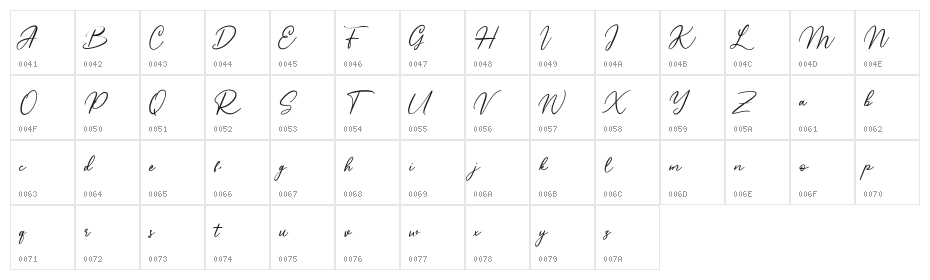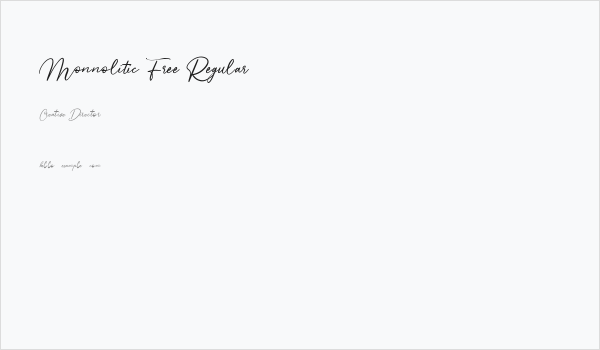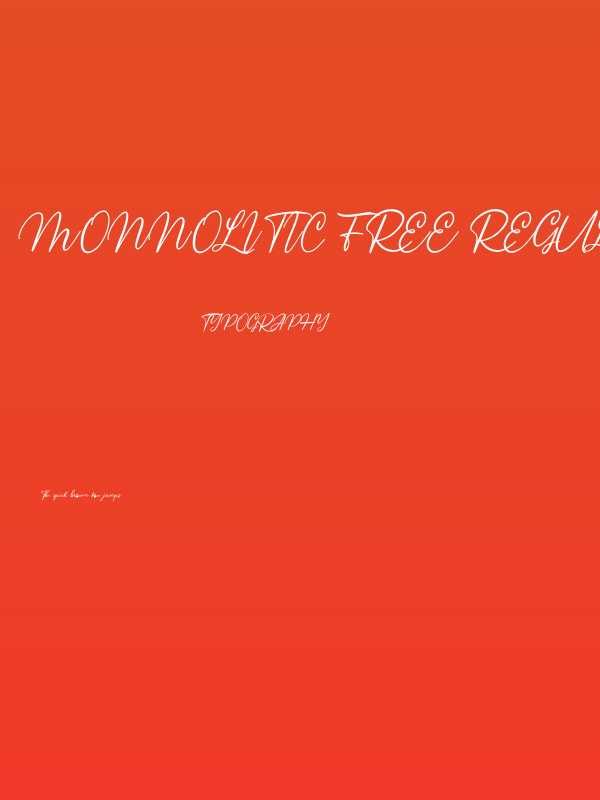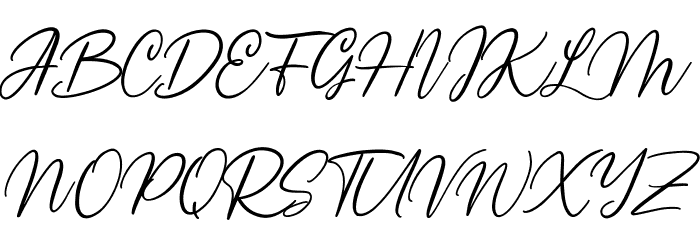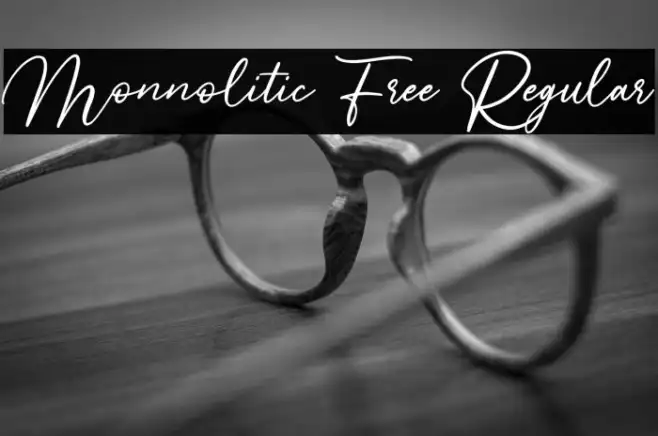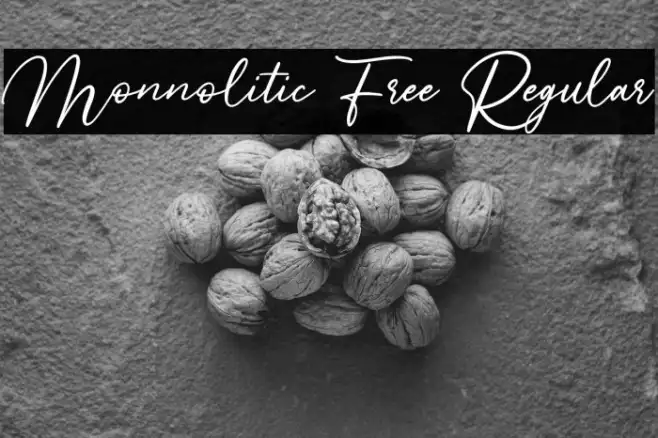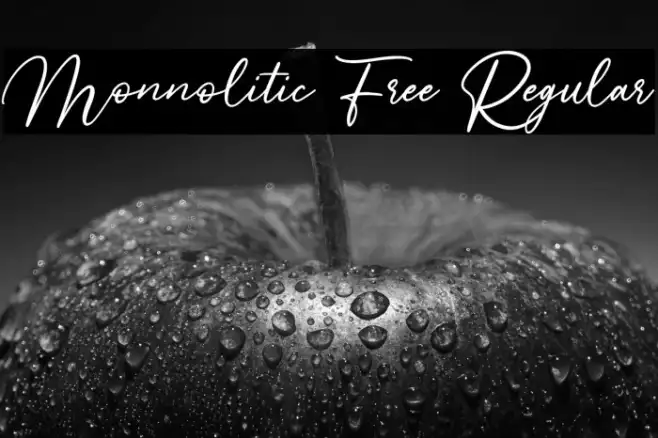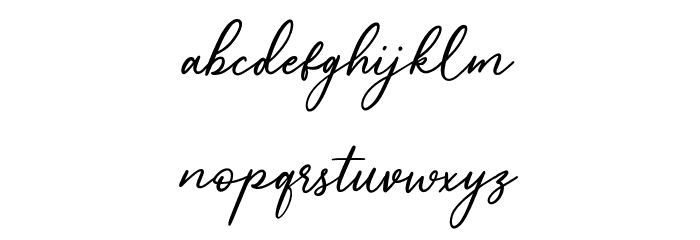
Monnolitic Free Regular Font
Monnolitic Free Regular Description
This elegant script font features flowing, interconnected letters that mimic the fluidity of cursive handwriting. The uppercase letters are ornate and slightly larger, providing a graceful contrast to the more delicate lowercase characters. The strokes are smooth and consistent, with a slight slant that enhances the handwritten feel. The font maintains a balanced weight throughout, ensuring readability while preserving its decorative appeal. The overall design is sophisticated and stylish, making it suitable for projects that require a touch of elegance and personality.
| Proposed Projects | Ideal for wedding invitations, greeting cards, branding, and elegant logo designs. |